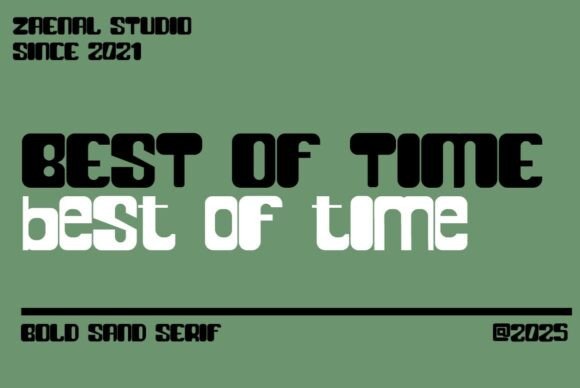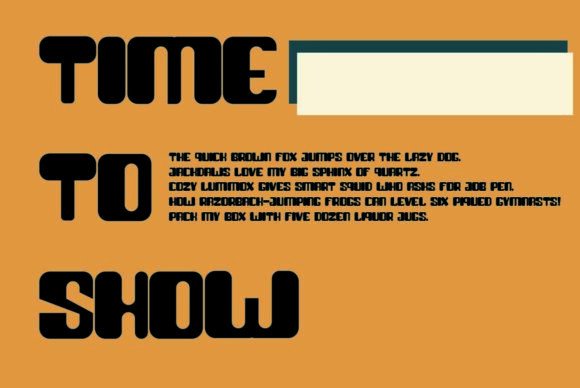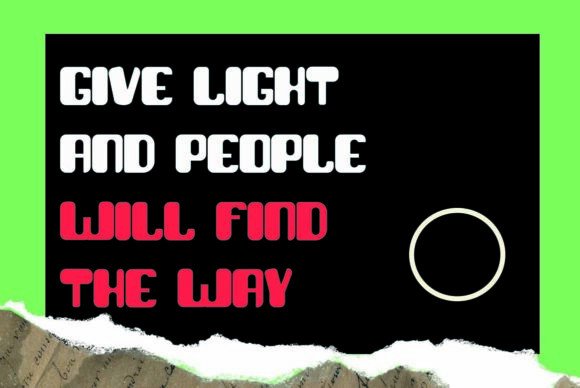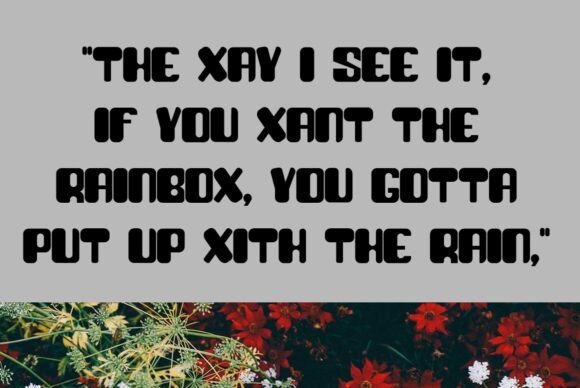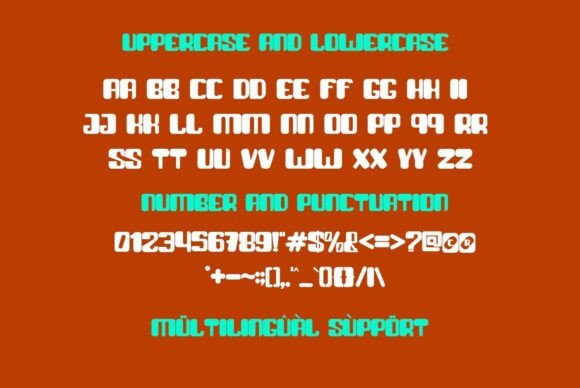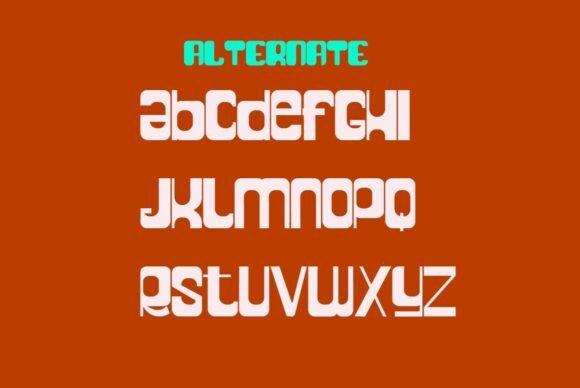
The Perfect Font for Making a Statement
Remember that moment when you’re working on a design project and you just can’t seem to find the right font to bring it all together? You’ve got your colors, your layout, and your content, but something’s missing. That’s where the Balde Font comes in – a bold and assertive sans serif font that’s guaranteed to elevate your creations.
Whether you’re working on a marketing campaign, a website, or a social media graphic, the Balde Font is an incredible asset to have in your library. Its versatility and modern aesthetic make it the perfect choice for any topic, from tech and business to fashion and lifestyle.
As a designer, you know how valuable it is to have a font that can make a statement and grab attention. The Balde Font is that font – it’s a game-changer that will take your designs to the next level.
Balde Font Key Features
- Unique Characteristics: Balde Font features a unique blend of modern and vintage styles, with intricate details and textures
Review: Balde Font
Overall, I think the Balde Font is a decent option for designers looking for a clean and modern sans-serif font. ✨ It has a sleek and sophisticated feel to it, making it perfect for corporate and business-related projects. The font is also highly legible, even at smaller font sizes.
- ✨ Clean and modern design: The Balde Font has a crisp and contemporary look that’s perfect for modern designs.
- ✨ Highly legible: The font is easy to read, even at smaller font sizes, making it a great choice for body text.
- ✨ Good for corporate projects: The font’s sophisticated feel makes it a great choice for business-related projects.
- ⚠️ Limited font weights: The Balde Font only comes in a limited number of font weights, which may limit its versatility.
- ⚠️ Not ideal for creative projects: While the font is great for corporate projects, it may not be the best choice for more creative and expressive projects.
Overall, I think the Balde Font is a solid choice for designers who need a clean and modern sans-serif font. However, it may not be the best choice for designers who need a more versatile font with a wider range of font weights.
For best results, use Balde Font for titles, headings, and other display text.
It’s ideal for creative projects, such as logos, posters, and social media graphics.
Alternatives to Balde Font for Designers
The Inter Font is a highly legible sans-serif font designed by Rasmus Andersson. It is a great alternative to Balde Font when you need a clean and modern look. Inter Font has a similar feel to Balde Font but with a more geometric and precise aesthetic. Use Inter Font for digital products, apps, and websites where you want a clear and readable font.
The Poppins Font is a modern sans-serif font designed by Indian Type Foundry. It is a great alternative to Balde Font when you need a font that is both elegant and functional. Poppins Font has a similar feel to Balde Font but with a more rounded and friendly aesthetic. Use Poppins Font for branding, logos, and marketing materials where you want a font that is approachable and inviting.
The Montserrat Font is a sans-serif font designed by Julieta Ulanovsky. It is a great alternative to Balde Font when you need a font that is urban and edgy. Montserrat Font has a similar feel to Balde Font but with a more gritty and industrial aesthetic. Use Montserrat Font for urban-themed projects, graffiti, and street art where you want a font that is bold and striking.
The Open Sans Font is a modern sans-serif font designed by Steve Matteson. It is a great alternative to Balde Font when you need a font that is both readable and versatile. Open Sans Font has a similar feel to Balde Font but with a more neutral and adaptable aesthetic. Use Open Sans Font for general design projects, reports, and documents where you want a font that is clear and easy to read.